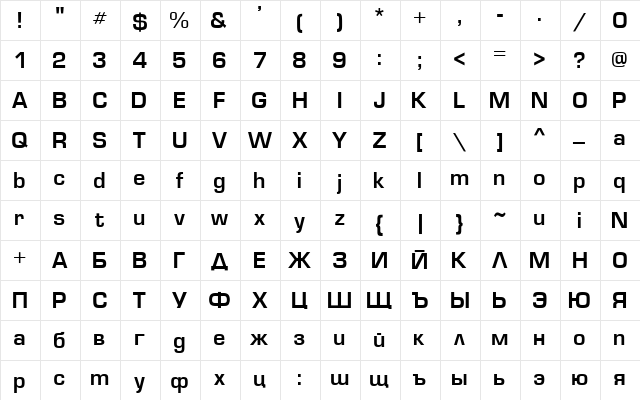
EUROSTYLE_CYR Regular
Design Context for EUROSTYLE_CYR Typeface
EUROSTYLE_CYR takes a measured approach to typography — its balanced proportions and neutral character make it a reliable workhorse for both digital and print work.